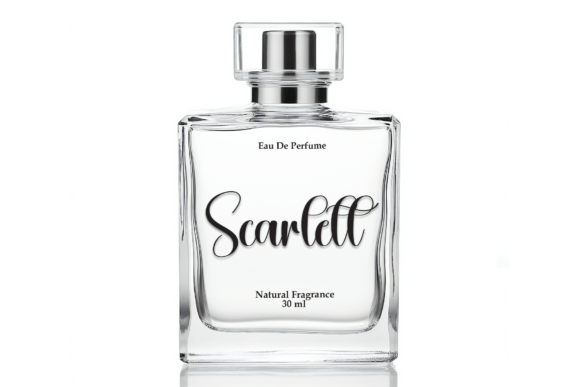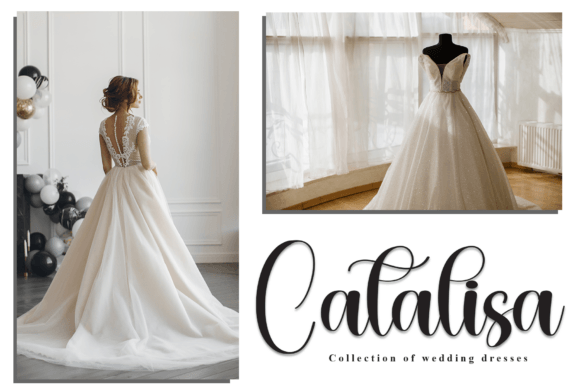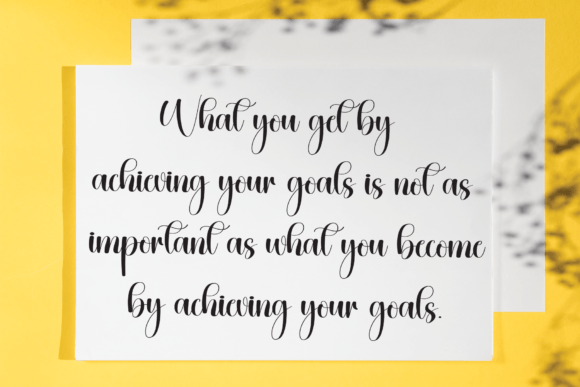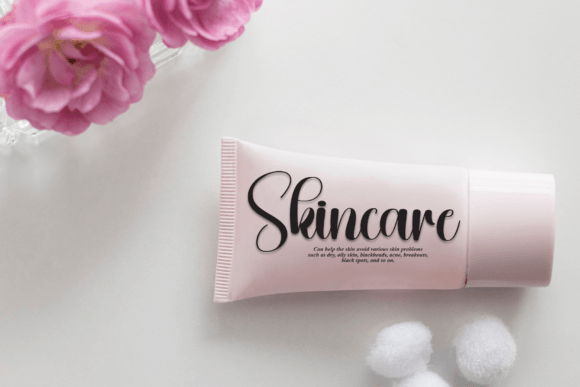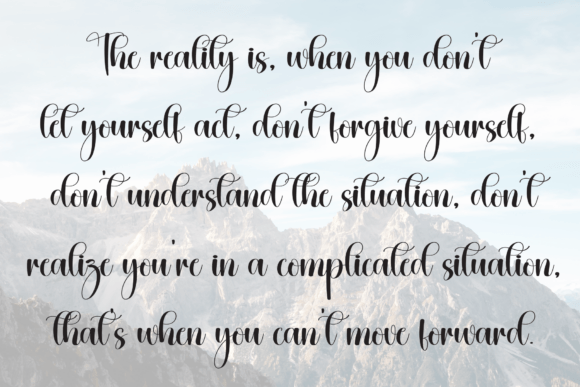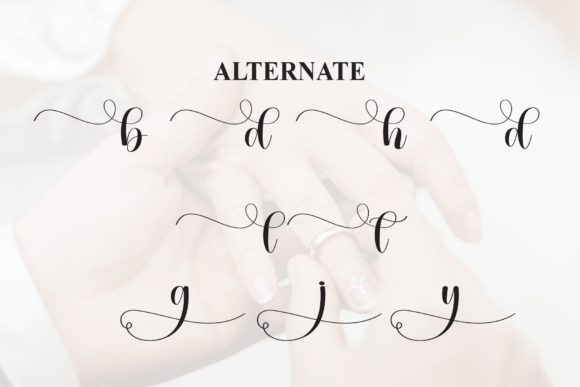
Introduction to Marriageable Font
There’s something magical about designing a wedding invitation – the delicate dance of words, the flourish of calligraphy, and the promise of a new beginning. For designers, it’s a chance to bring their creative vision to life and make a couple’s special day even more unforgettable. And when it comes to making that vision a reality, the right font can be the key to unlocking true elegance and sophistication. That’s where the Marriageable Font comes in – a stunning script font that adds a touch of handmade charm to any design.
Key Features of Marriageable Font
- High-quality, professional font design suitable for various creative projects
- Includes a range of characters, including uppercase and lowercase letters, numbers, and punctuation
- Designed with a clean and modern aesthetic, ideal for use in logos, headings, and body text
Honest Review: Marriageable Font
As a designer, I’m always on the lookout for high-quality fonts to elevate my creative projects. Recently, I stumbled upon the Marriageable Font, and I’m excited to share my honest review.
- ✨ The font’s modern and elegant design makes it perfect for wedding invitations, stationery, and other romantic-themed projects.
- ⚠️ The font may not be suitable for bold or dramatic designs, as it can appear delicate and refined.
Overall, I’m impressed with the Marriageable Font’s high quality and versatility. While it may not be the best choice for every design project, it’s a great addition to any designer’s toolkit. Whether you’re working on a romantic wedding invitation or a creative project that requires a touch of elegance, the Marriageable Font is definitely worth checking out.